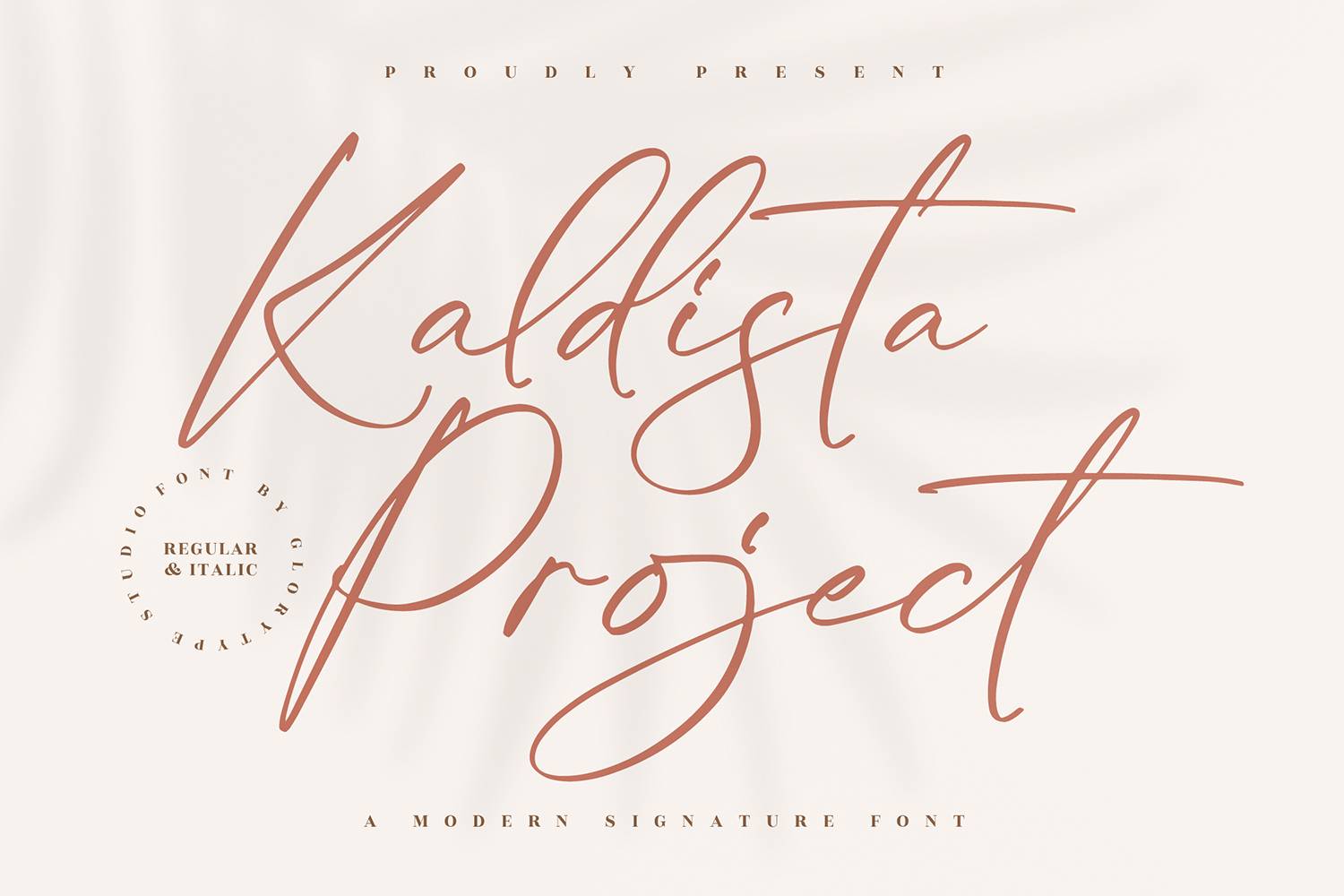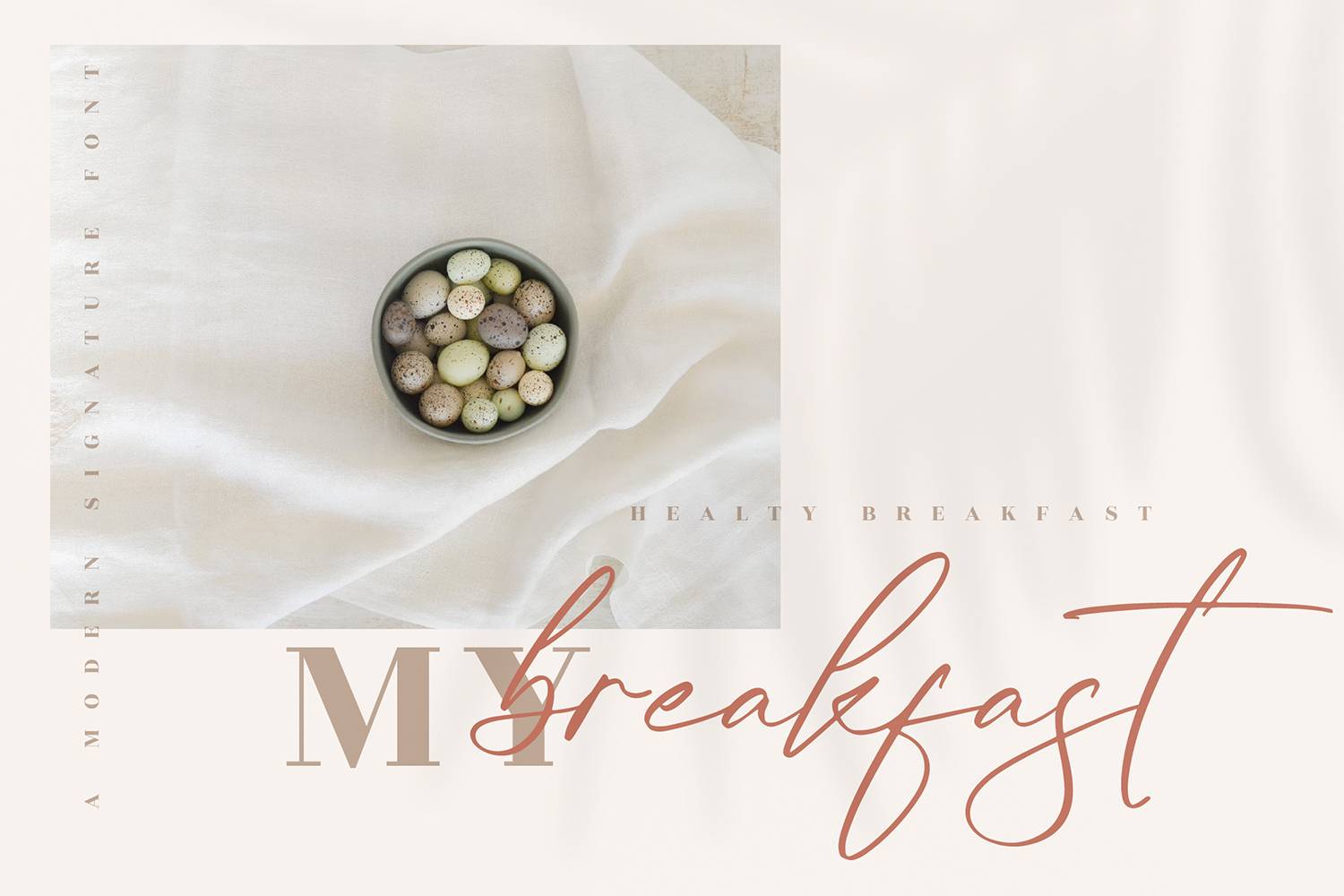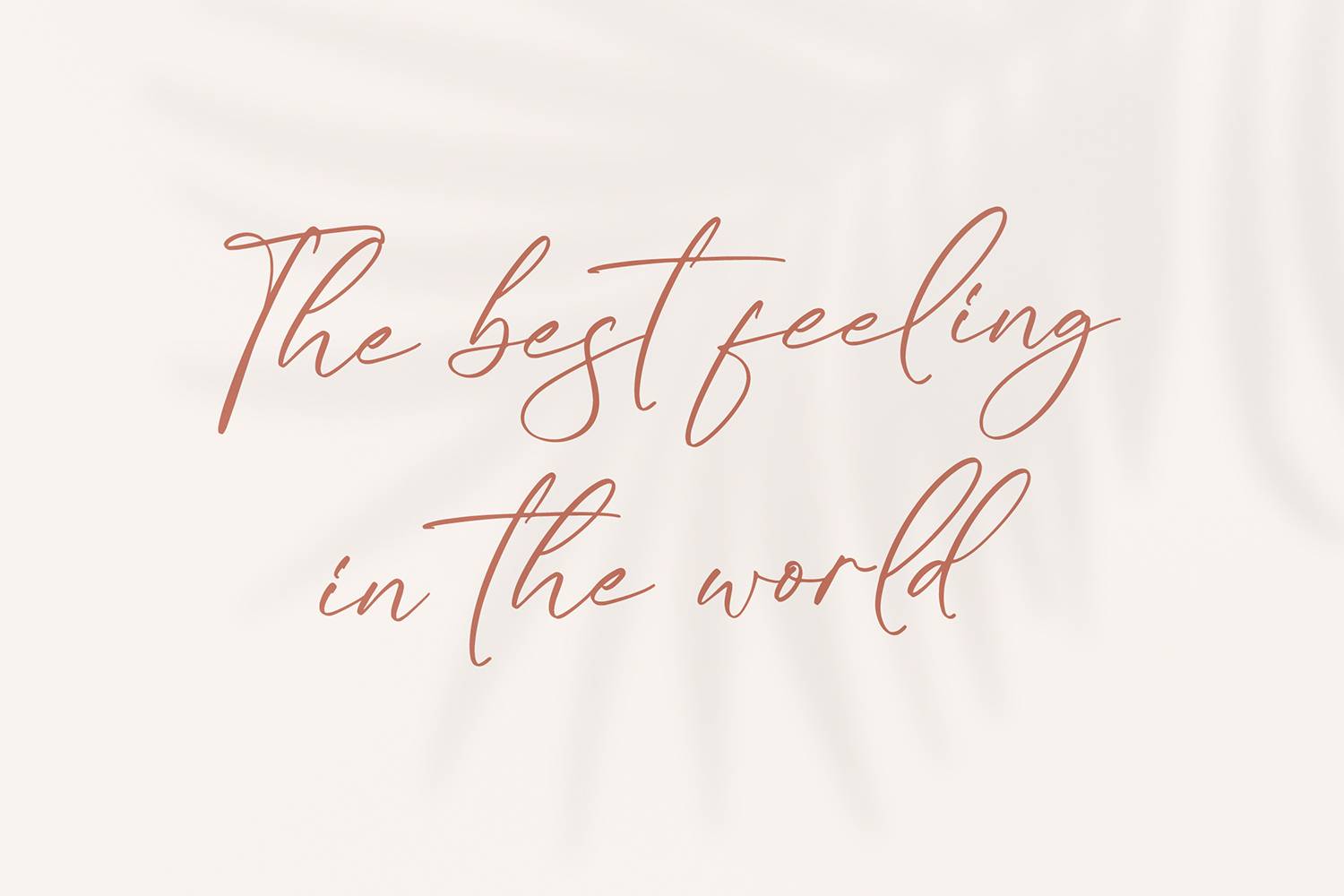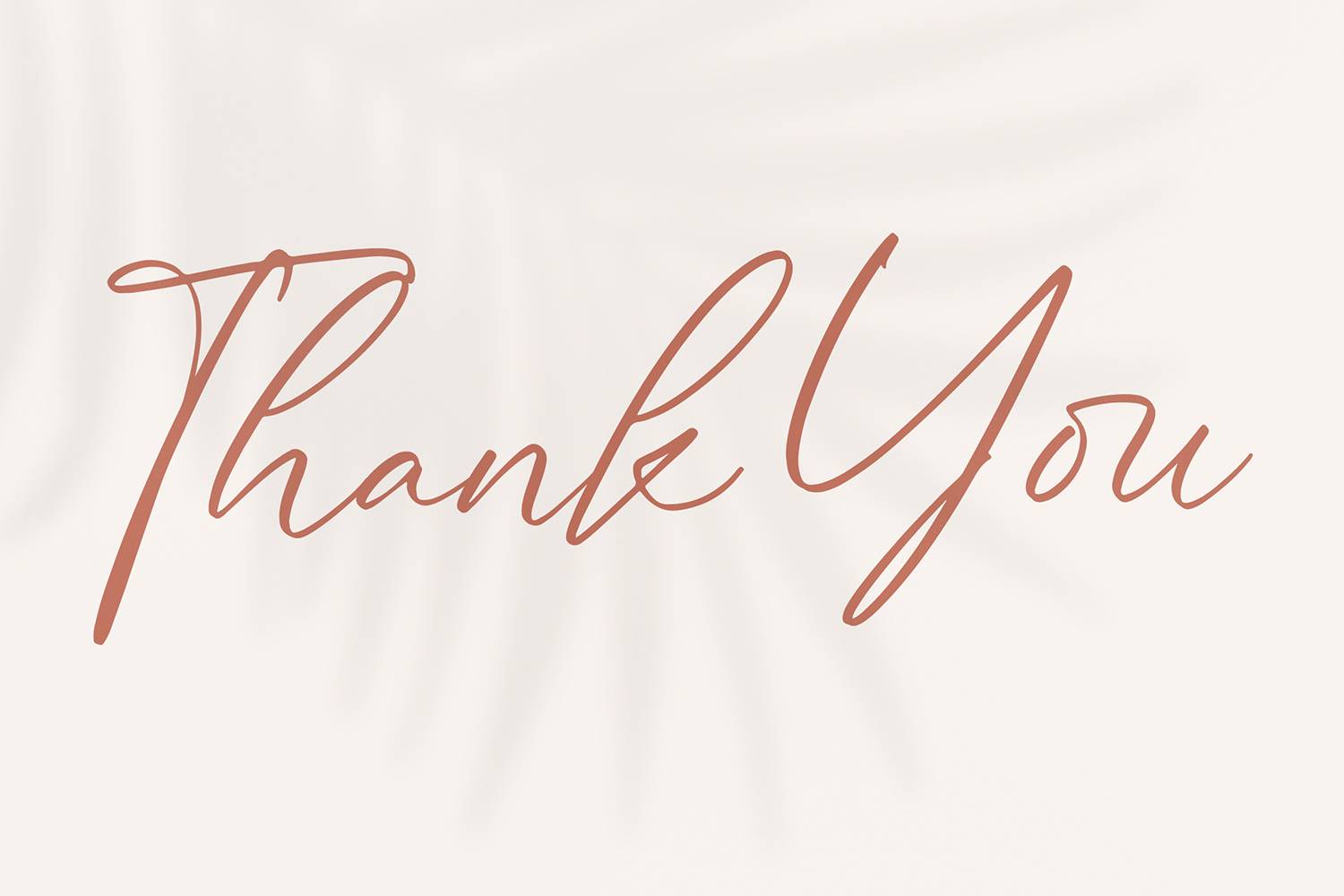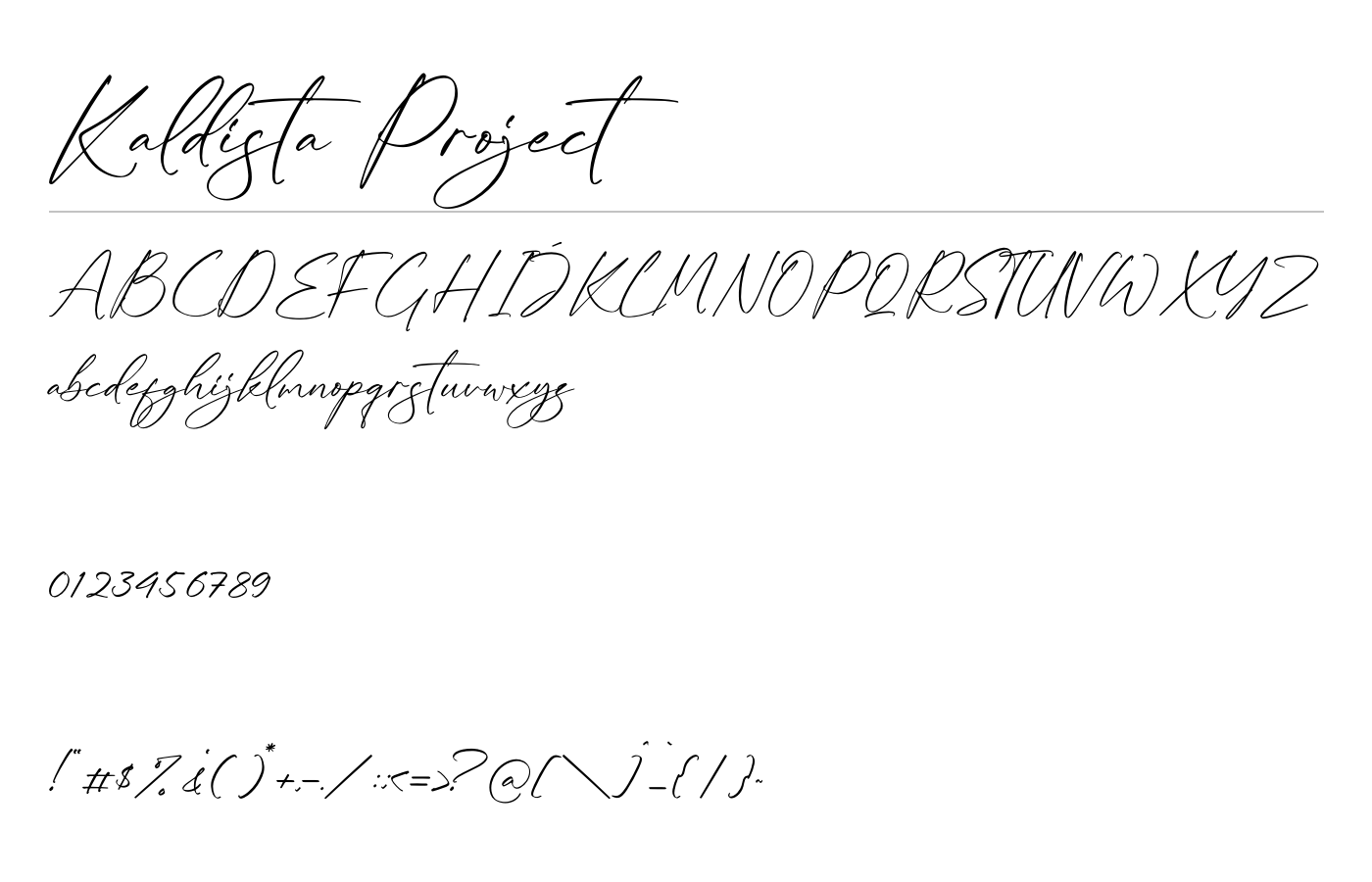
Kaldista Project is a delicate, elegant script font with a modern handwritten feel, characterized by its thin, flowing strokes and high contrast. Its tall, airy letterforms and graceful curves make it ideal for luxury branding, wedding invitations, and upscale editorial projects where a refined, personal touch is desired. This font works beautifully in contexts that require a sophisticated yet approachable style, lending a sense of intimacy and creativity.
Kaldista Project Font
About Kaldista Project Font